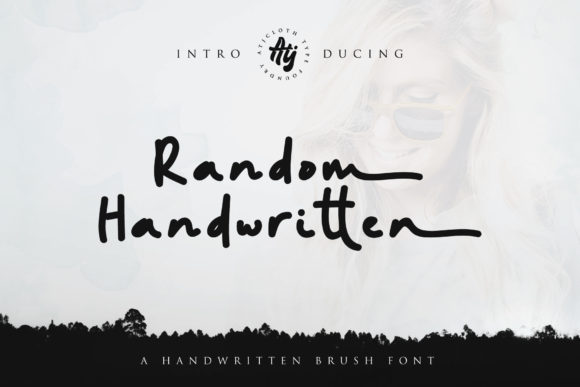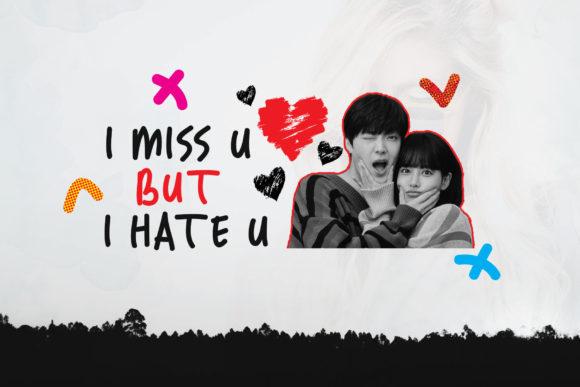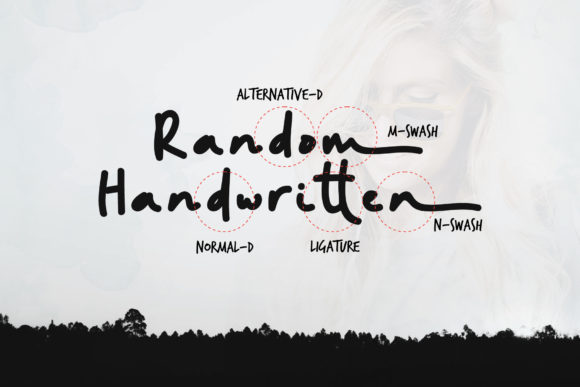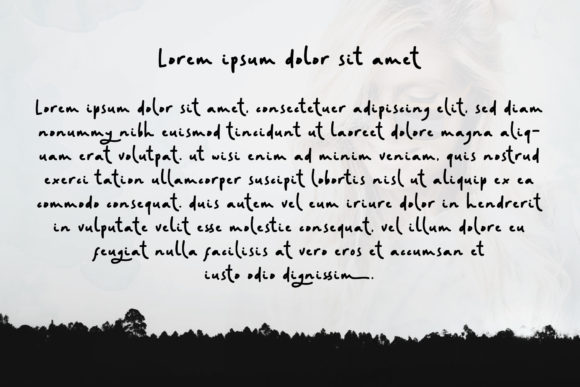
About Random Handwritten Font
Random Handwritten is a rustic handwritten font, carefully handcrafted to become a true favorite. Its casual charm makes it appear wonderfully down-to-earth, readable and, ultimately, incredibly versatile. Random Handwritten will look outstanding in any context, whether it’s being used on busy backgrounds or as a standalone headline!